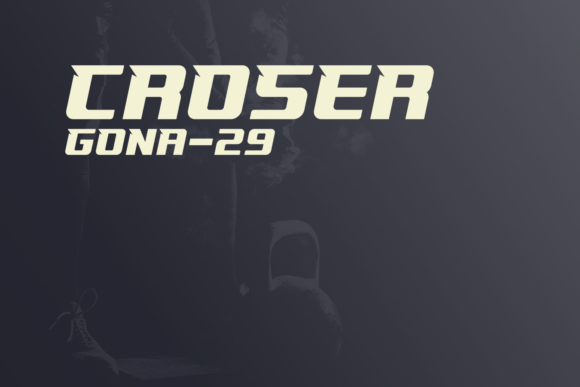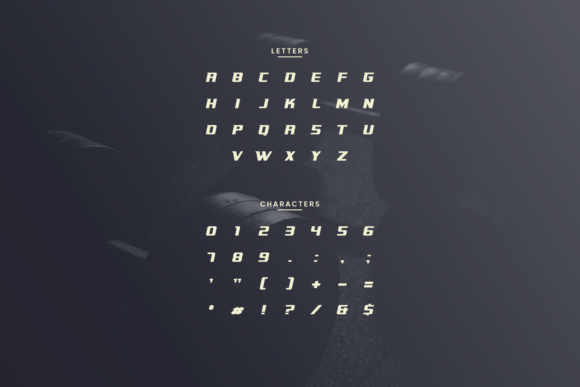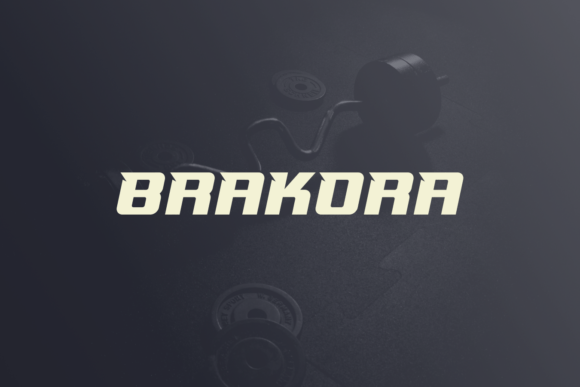
Unlock Your Creativity with the Gebaco Font
Have you ever been stuck on a design project, unable to find the perfect font to bring your vision to life? You know the feeling – like you’re trying to solve a puzzle with missing pieces. It’s frustrating, but it’s also a moment of opportunity. This is when the right font can make all the difference.
That’s where the Gebaco Font comes in – a stylish and cool display font designed to elevate your creative ideas to new heights. Whether you’re a seasoned designer or just starting out, this font is a valuable tool in your toolkit. Its masterful design makes it easy to use, yet sophisticated enough to add a touch of elegance to any project. With the Gebaco Font, you’ll be able to unlock your full creative potential and bring your designs to life in a way that truly stands out.
Gebaco Font Key Features
- Font Family: Gebaco is a sans-serif font family designed for optimal readability and versatility.
- Character Set: Includes a comprehensive set of characters, including Latin, Cyrillic, and Greek scripts, making it suitable for multilingual applications.
- Size and Resolution: Designed to be highly legible at small font sizes (down to 8 points) and high resolutions (up to 300 DPI), ensuring clear readability on various devices.
- Unique Characteristics: Gebaco features a distinctive geometric design with a subtle rounded edge, creating a modern and friendly aesthetic.
Gebaco Font Review
I recently had the chance to work with the Gebaco Font, and I must say it’s a unique addition to any design project. Here are some of my thoughts on what works well and what doesn’t.
- Playful and whimsical feel: Gebaco Font has a distinct personality that can add a touch of fun to any design.
- Good for headlines and titles: Its bold and expressive strokes make it perfect for grabbing attention and setting the tone for a design.
- Works well in digital and print: Despite being a digital font, Gebaco Font holds up well in print, making it a versatile option for designers.
- Limited legibility in small sizes: Gebaco Font can become difficult to read when scaled down, which may limit its use in body text.
- Lack of consistency in stroke width: The varying stroke widths can make the font feel a bit unpolished in some areas.
While Gebaco Font has some limitations, its unique personality and versatility make it a great addition to any design project. With some careful consideration of its limitations, it can add a lot of character to your designs.
Getting the Most Out of Gebaco Font
To get the most out of Gebaco Font, consider the following tips:
- Use Gebaco Font in combination with other fonts to create a unique and visually appealing design.
- Play with the font color to create contrast and emphasis.
Gebaco Font is commonly used in:
- Advertising and marketing materials.
- Choose a bold color scheme to complement the Gebaco Font’s playful feel.
- Use Gebaco Font as the primary font for the poster’s title and main text.
- Experiment with font sizes and weights to create visual interest.
- Pair Gebaco Font with geometric shapes and bold lines to create a modern and edgy look.
- Use Gebaco Font in conjunction with watercolor textures or hand-drawn illustrations to add a touch of whimsy.
- Choose a quote that resonates with your target audience and has a strong emotional impact.
- Use Gebaco Font in a larger size to make the quote stand out.
- Experiment with different font colors and styles to create visual contrast.
- Pair Gebaco Font with minimalist graphics or simple shapes to create a clean and modern look.
Creative Projects with Gebaco Font
Project 1: Gebaco Typography Poster
Create a visually striking poster featuring Gebaco Font as the main attraction. This project is perfect for designers who want to showcase the unique characteristics of the font.
How to use Gebaco Font:
Project 2: Gebaco Quote Graphic
Design a quote graphic that highlights a motivational or inspirational quote in Gebaco Font. This project is ideal for designers who want to create a visually appealing graphic with a strong message.
How to use Gebaco Font: